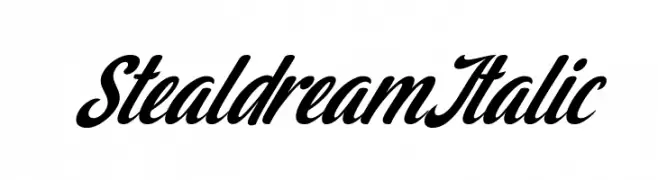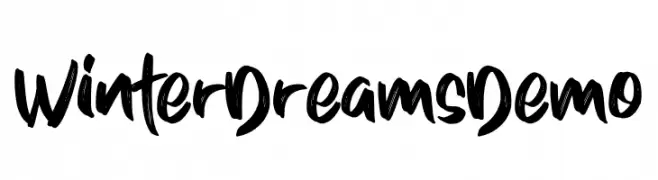
A bold, expressive handwritten font with brush-like strokes.
Halloween-themed doodle icons in a decorative dingbat style.
A whimsical, spooky font with tall, narrow characters and playful serifs.
A lively handwritten font with fluid strokes and playful loops.
A bold, dynamic brush-style font with expressive, handcrafted strokes.
A bold, brush-style font with dynamic, hand-painted strokes.
A bold, hand-painted style font with textured, brush-like strokes.
A festive, bold font with playful holiday-themed patterns.
A fluid and elegant script font with medium contrast and graceful letterforms.
A bold, dynamic script font with an elegant italic slant and high contrast strokes.